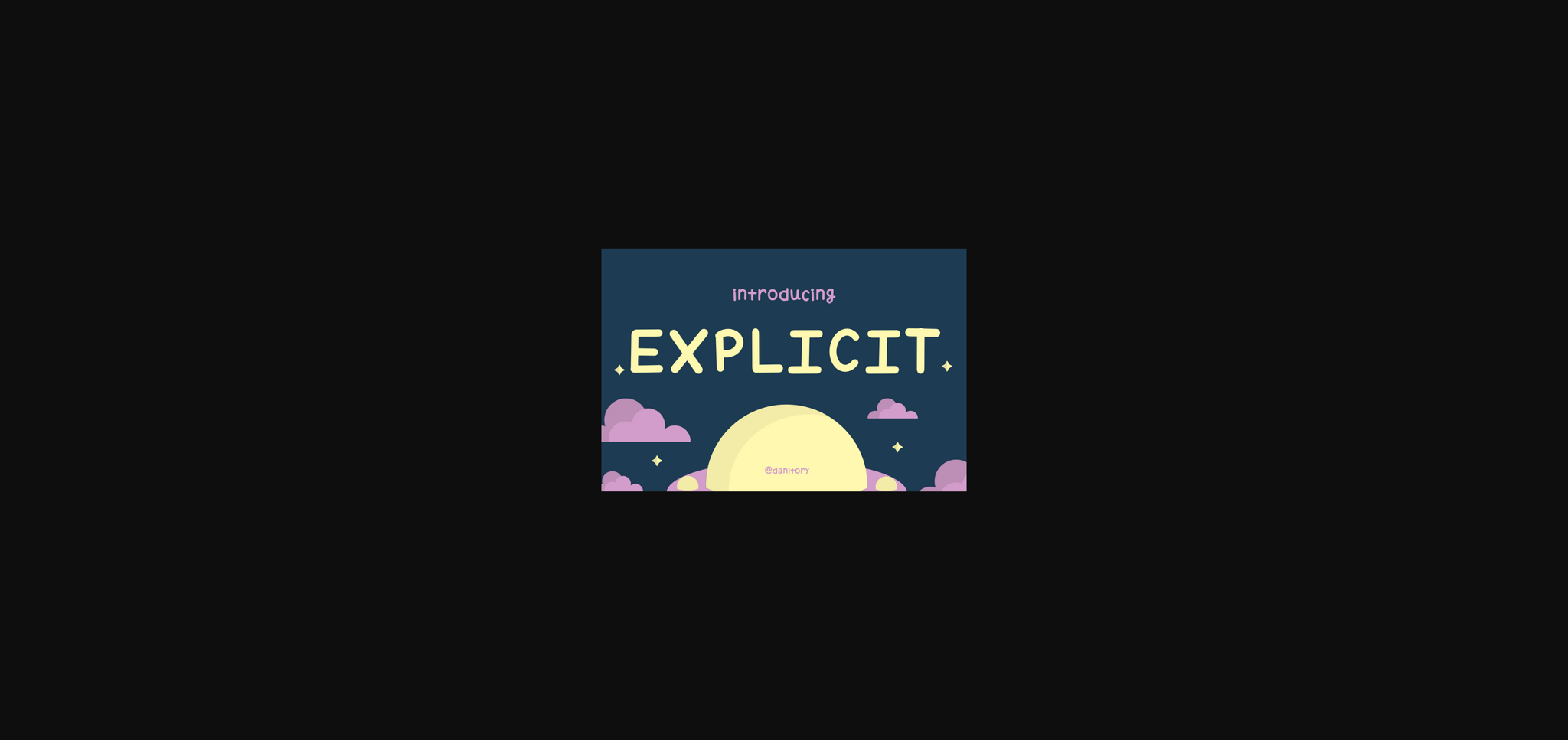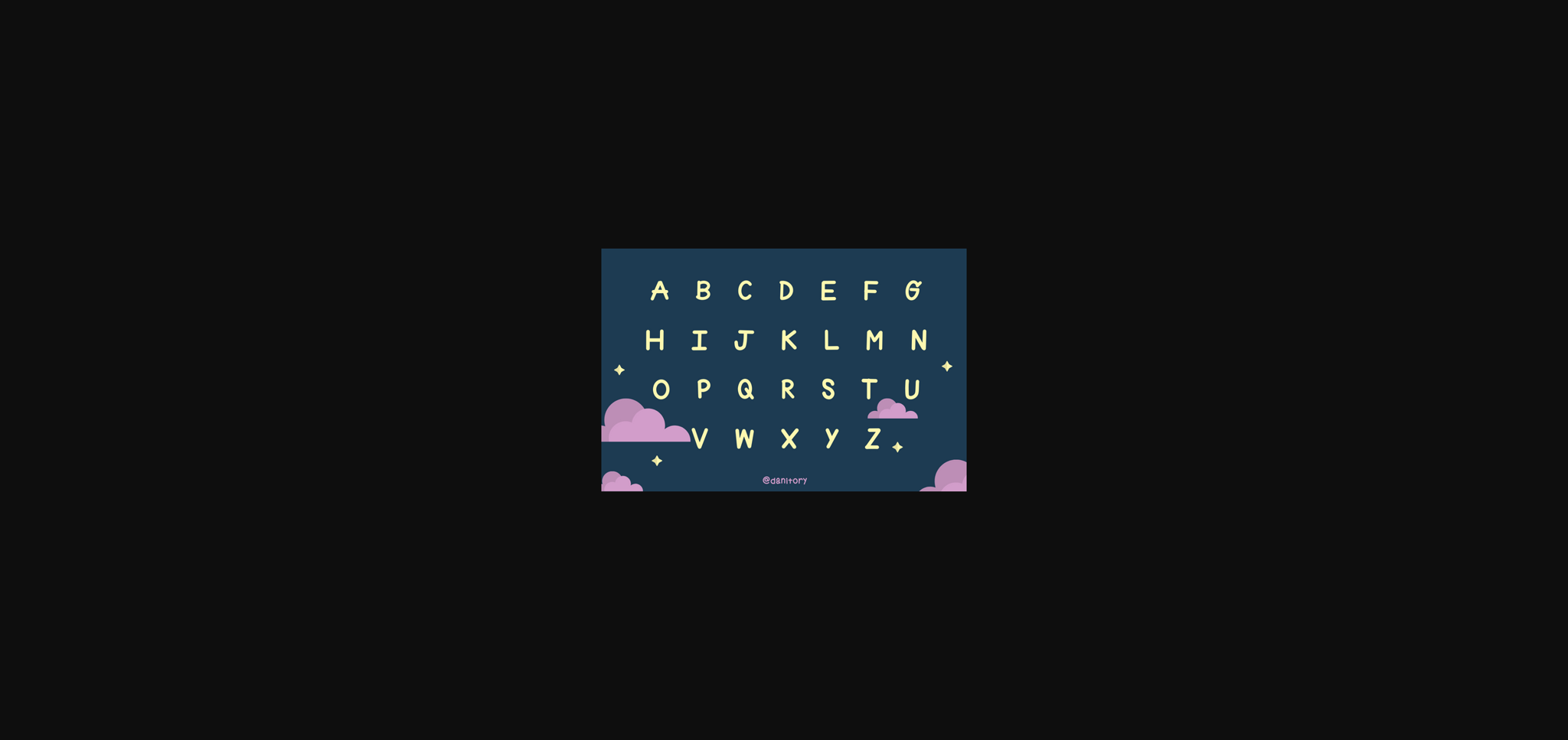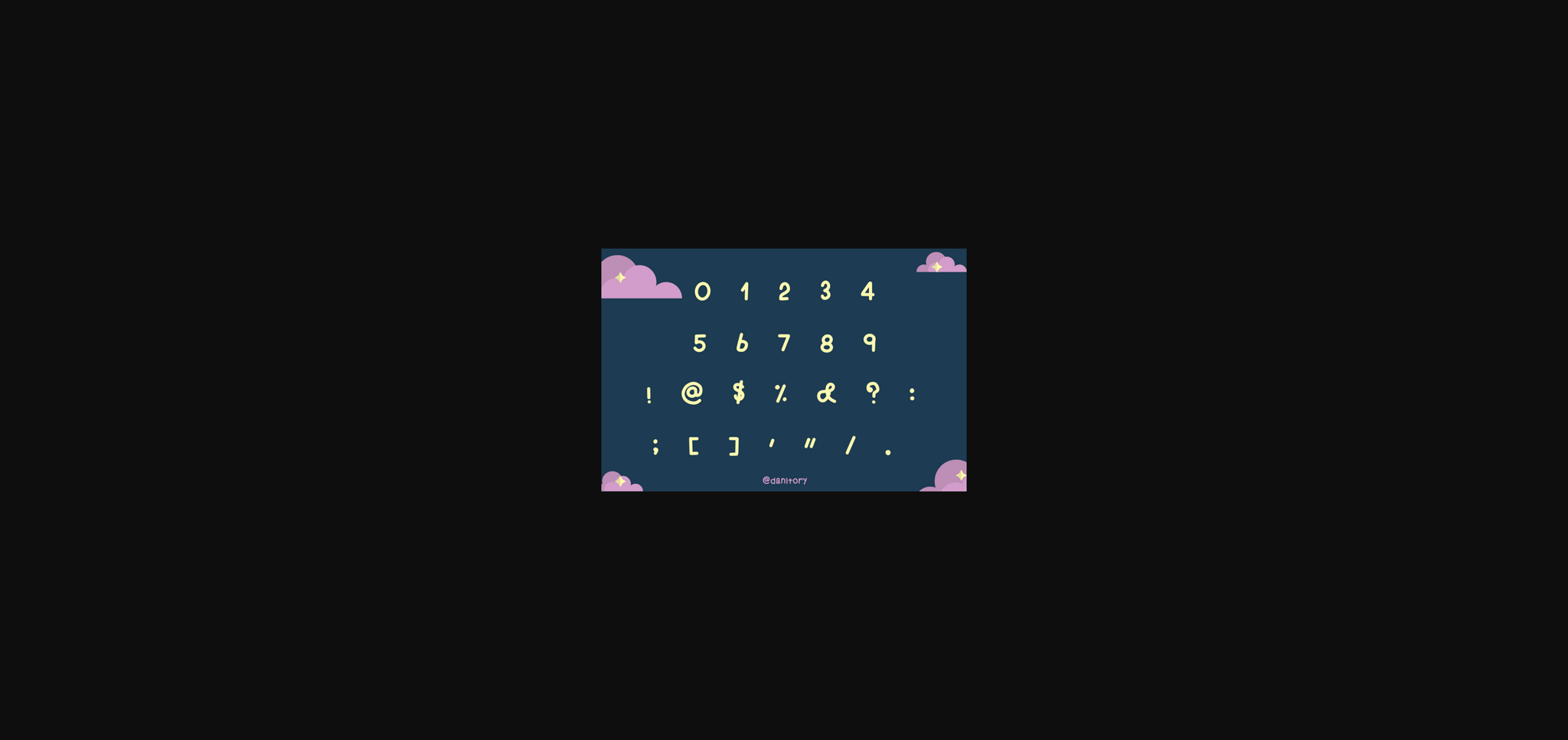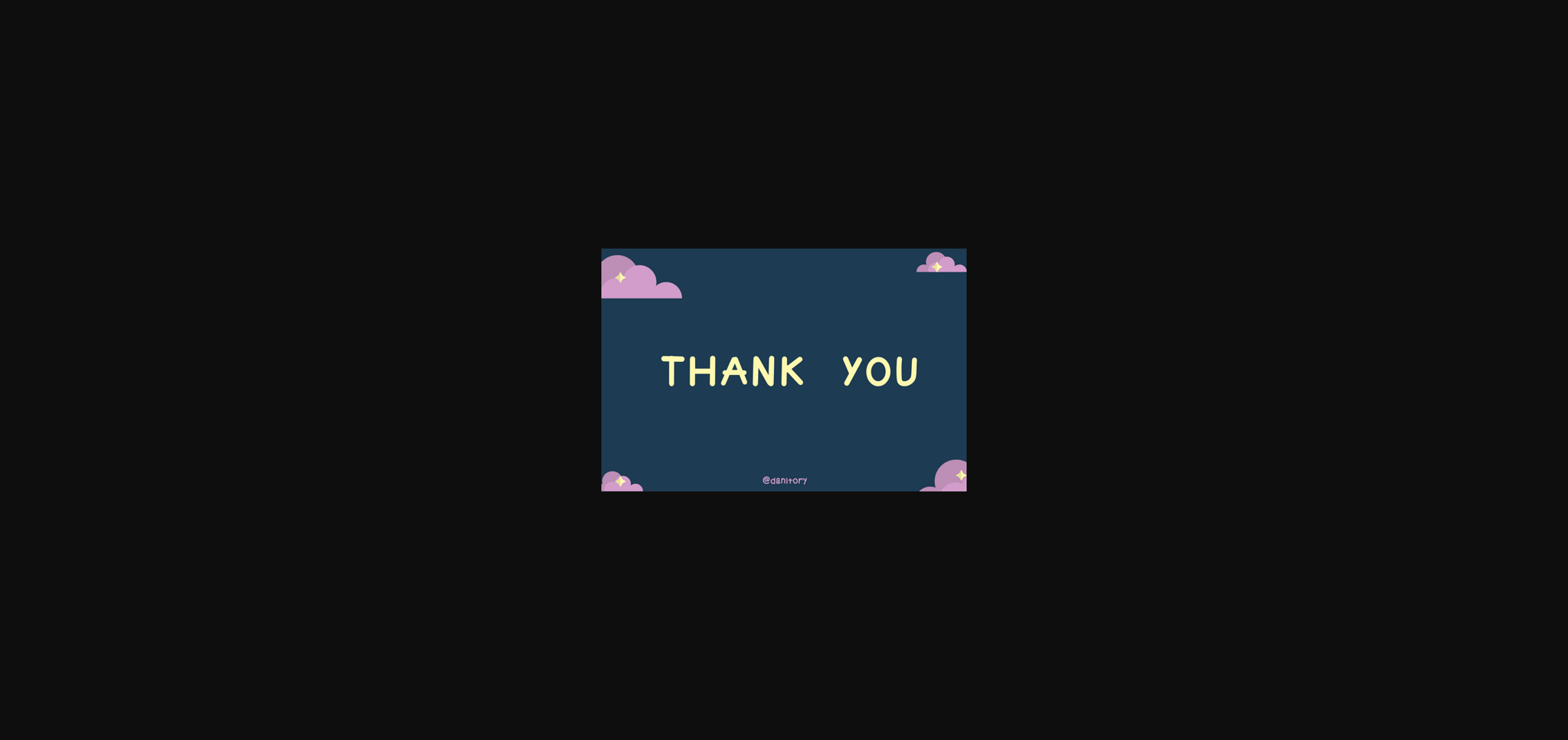
HomeSans Serif FontsExplicit Font Sans Serif Fonts Explicit Font FacebookXPinterestWhatsApp 1 of 7 ... Explicit Font Poster 2... Explicit Font Poster 3... Explicit Font Poster 4... Explicit Font Poster 5... Explicit Font Poster 6... Explicit Font Poster 7... About Explicit Font Explicit is a cute and modern handwritten sans serif font. Its casual charm makes it suitable for a large variety of design ideas. DOWNLOAD NOW People also explored Beringin Font Oleandro Modern Calligraphy Font Roasttery Font Nurmala Font Sheylamte Font Comic Font Graduation Day Font Handmade Product Font Bee Kind Font 406 0 TagsExplicit Font Previous articleEutony FontNext articleHaeder Font LEAVE A REPLY Cancel reply Comment: Please enter your comment! Name:* Please enter your name here Email:* You have entered an incorrect email address! Please enter your email address here Website: Save my name, email, and website in this browser for the next time I comment. Personal Use Free Market Love Personal Use Free Read more about this font Catandra Script Personal Use Free Read more about this font Karmatic Arcade Personal Use Free Read more about this font Just Smile Personal Use Free Read more about this font BLOG Top 10 Handwritten Fonts That Elevate Your Designs Top 10 Handwritten Fonts That Will Elevate Your Designs Handwritten fonts bring a warm, personal touch to every creative project. Whether you're designing logos, invitations,... Free Fonts Risk: Why Free Fonts Can Be Dangerous for Designers How to Cut Any Font on Cricut: Convert a Font to SVG (Free) Using Fonts in Digital Marketing: Tips to Strengthen Your Brand Identity